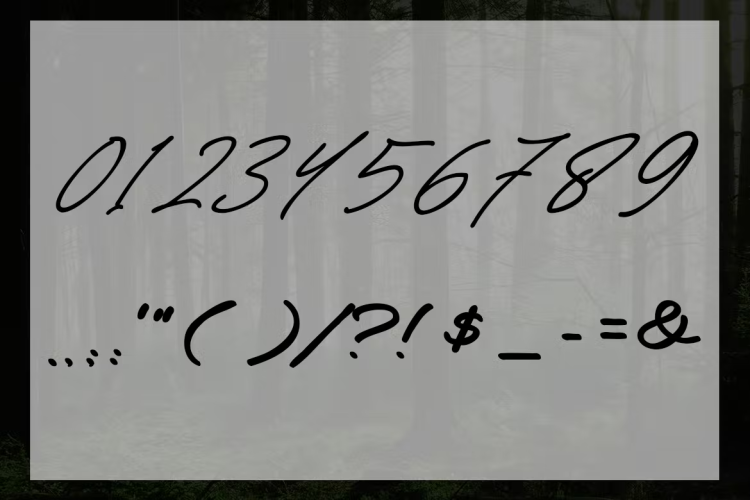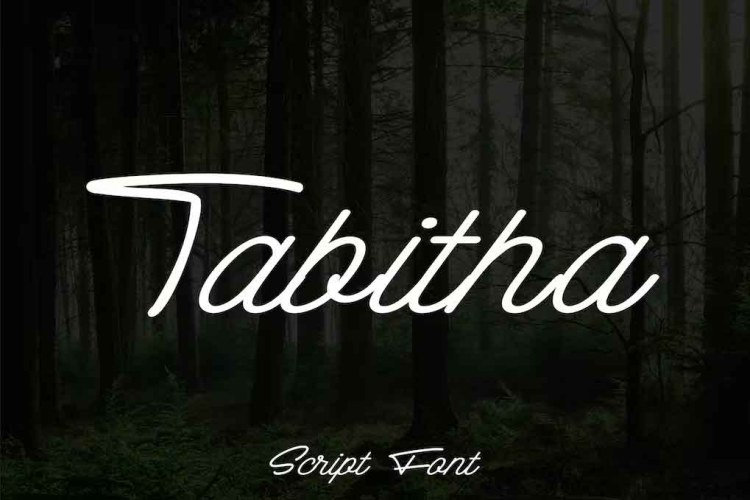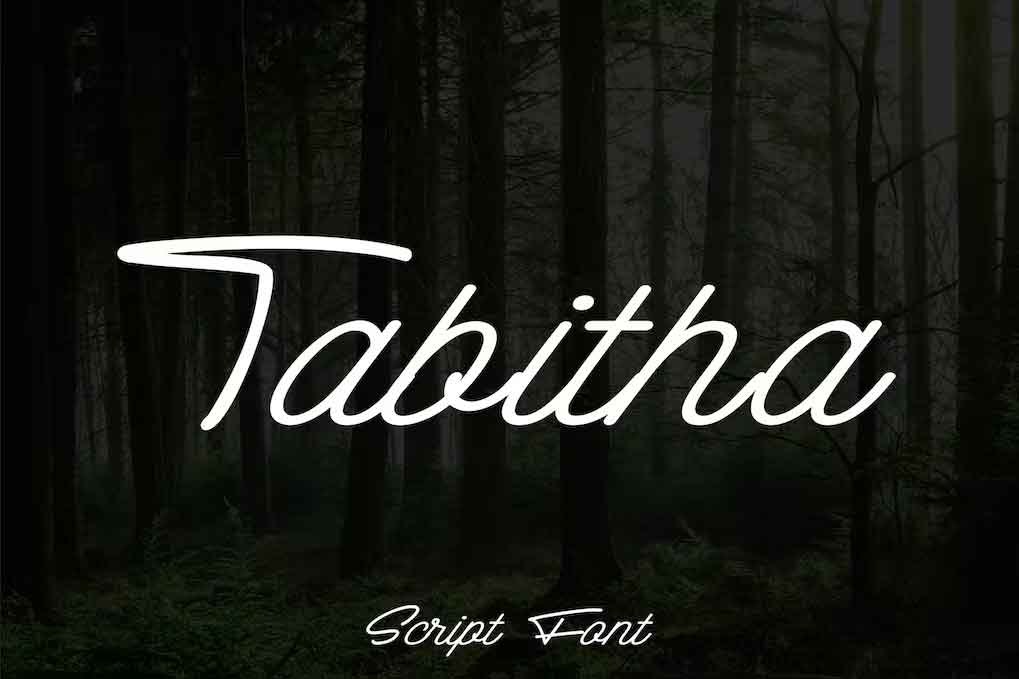
Tabitha Script Font
ITEM DESCRIPTION
Introducing our new product Tabitha Script Font – Modern Font is a bold and authentic display font. The font is suitable for any branding project like logo, t-shirt printing, esport, and many more. outstanding in a wide range of contexts.
Where Tabitha Script Font works best
Tabitha Script Font brings a personal, handwritten warmth to invitations, menus and place cards.
Craft brands — coffee, cosmetics, bakery — use scripts like Tabitha Script Font for signature-style logos and labels.
Pair Tabitha Script Font with a plain sans for quotes, stories and Pinterest pins that feel handmade.
What is Tabitha Script Font good for?
Tabitha Script Font is a Script And Handwritten typeface tagged Bold, Branding, Display, Modern. It works well for headlines, logos, posters, social media graphics and branding projects that need a distinctive script and handwritten look.